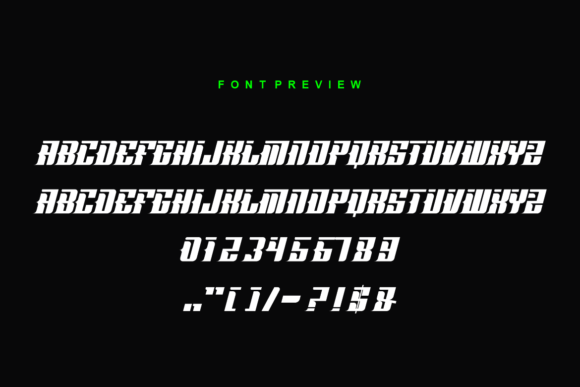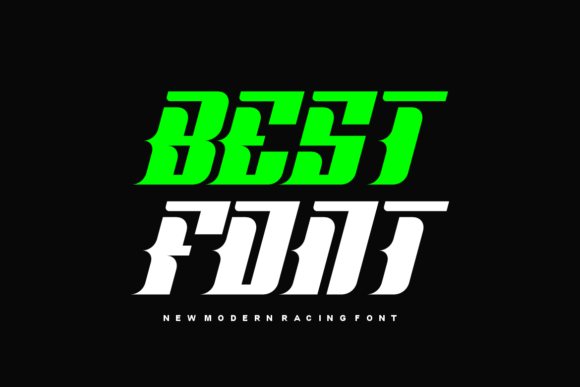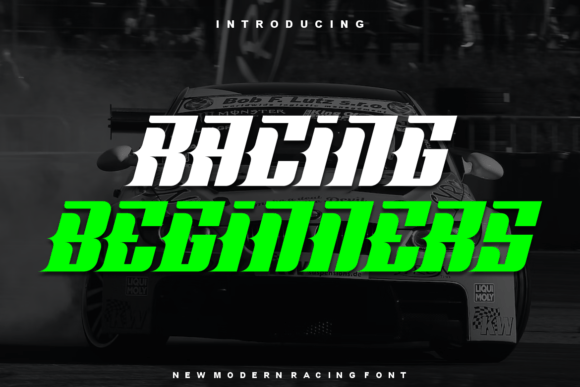
Racing Beginners Font
Racing Beginners Font is a modern font with a sleek, fast look. It’s perfect for designs that need a touch of speed and excitement. The letters are clean and easy to read, making it great for racing themes and energetic projects.